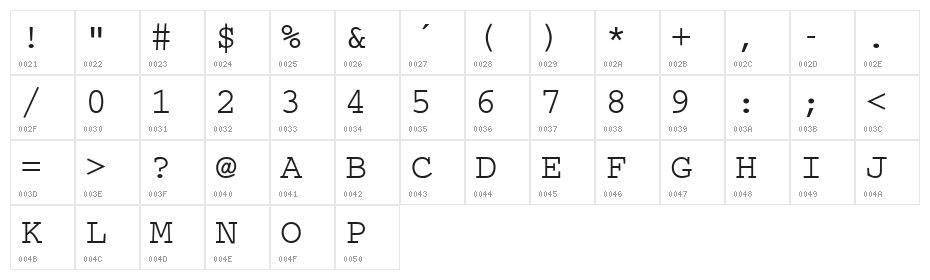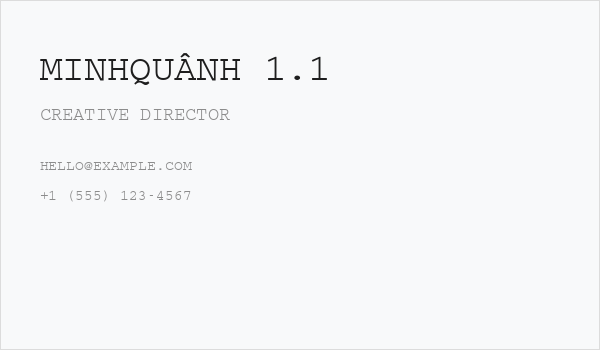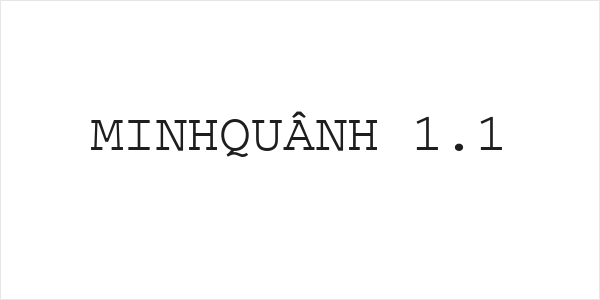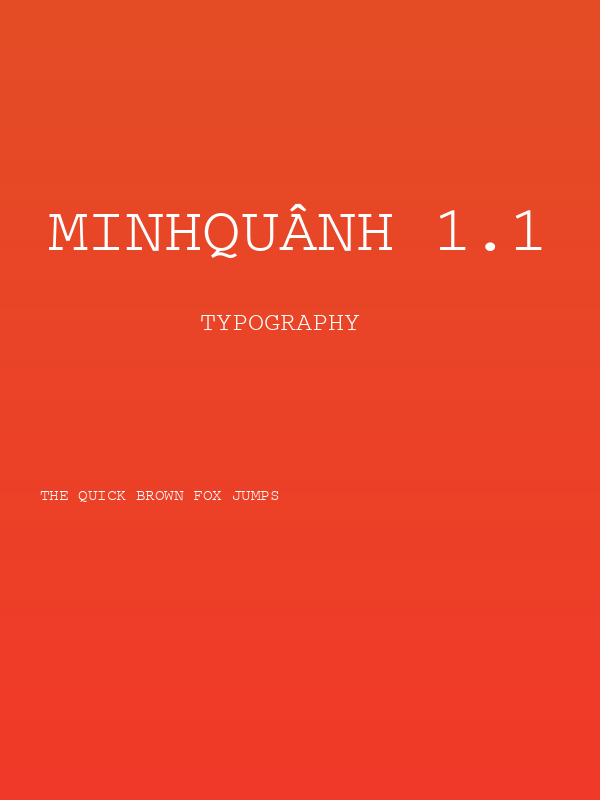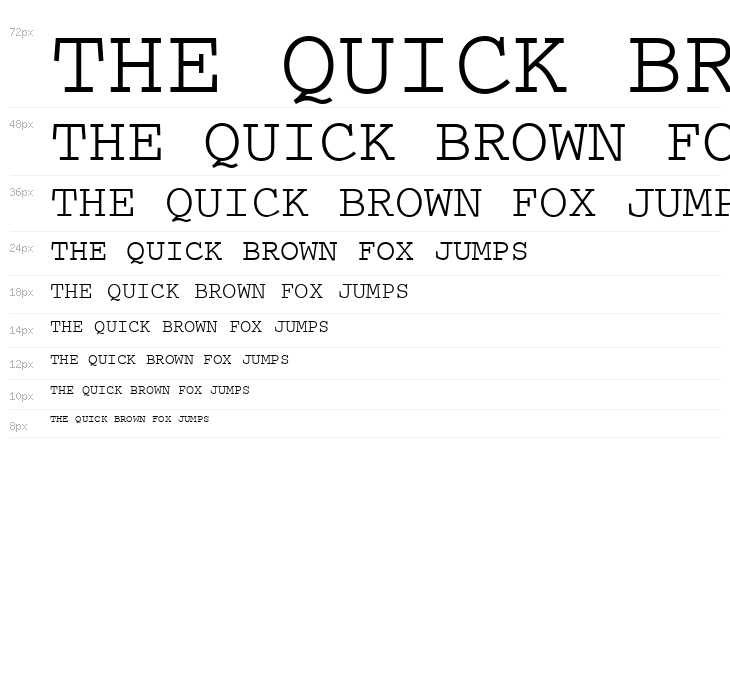
MinhQuânH 1.1 Font
MinhQuânH 1.1 Description
This font features a classic serif style with a modern twist, characterized by its clean and sharp lines. The uppercase letters are bold and prominent, while the lowercase letters maintain a consistent and harmonious flow. The numerals are clear and easy to read, making them suitable for various applications. Special characters are well-defined, adding versatility to the font. The overall design is balanced, with a medium contrast in stroke thickness, providing a professional and elegant appearance.
Overall StyleClassic
Proposed ProjectsIdeal for editorial design, book covers, formal invitations, and branding projects that require a touch of elegance and sophistication.